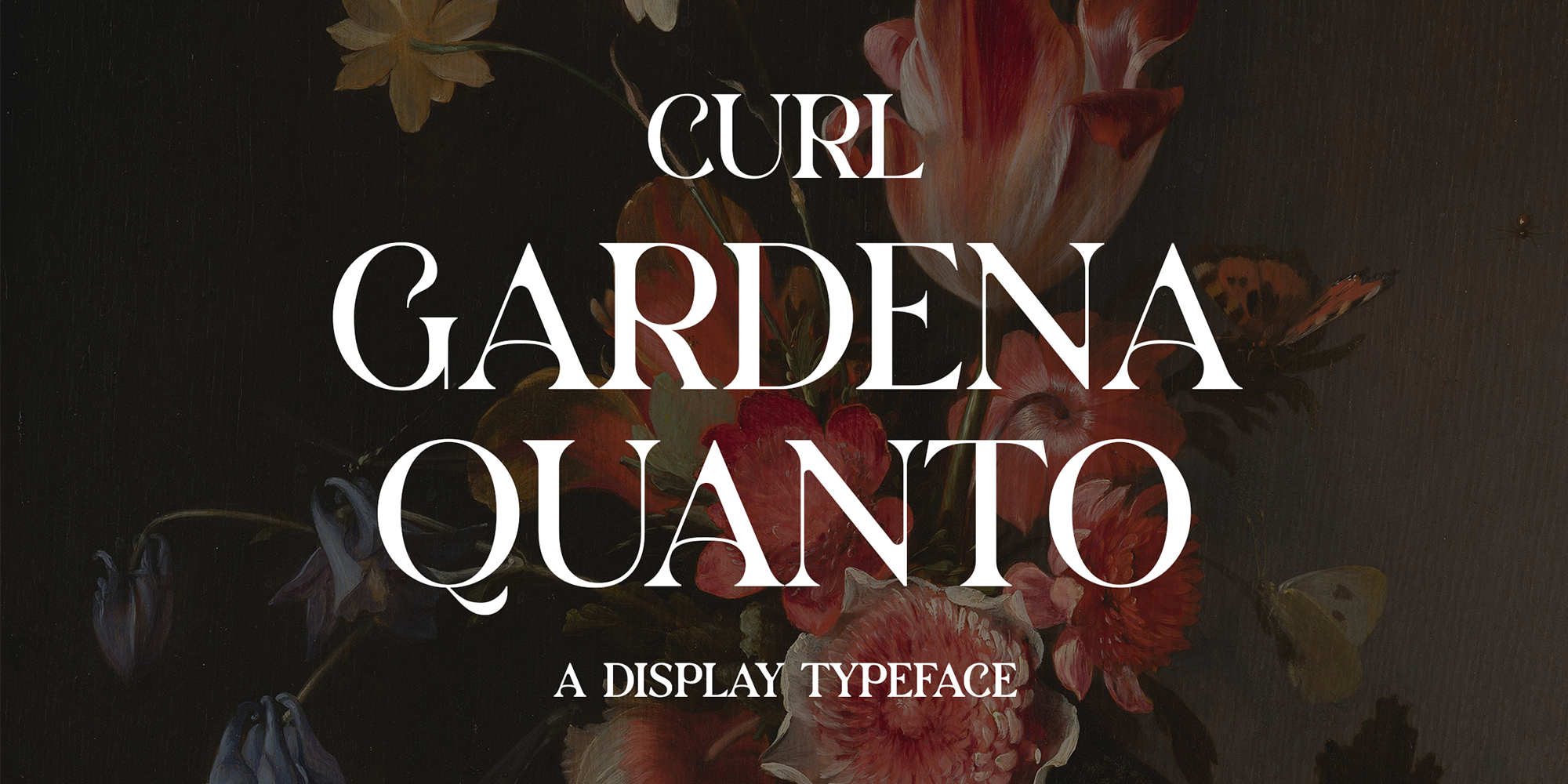
Gardena Quanto Font is ideal for garden design projects including botanical gardens, landscape architecture firms, garden center retailers, plant nurseries, horticultural organizations, garden design consultancies, outdoor living companies, and flourishing gardening campaigns. This natural typeface works perfectly for garden supply stores, landscape contractors, botanical education programs, greenhouse operators, and projects that celebrate the beauty and tranquility of garden cultivation and outdoor horticultural excellence.
What makes Gardena Quanto Font exciting is its flourishing garden character that perfectly captures the essence of botanical abundance and horticultural sophistication. The font features organic letterforms with garden-inspired curves that reflect the natural growth and seasonal beauty of cultivated gardens. Its botanical design elements embody the spirit of garden cultivation and horticultural artistry, making it perfect for projects that need to convey growth, nature, and connection to gardening culture. The carefully crafted garden proportions create an atmosphere of botanical sophistication and horticultural authenticity.
Gardena Quanto Font comes in multiple family variations including botanical, flourishing, natural, and garden styles. Each weight maintains the distinctive horticultural character while offering different levels of garden intensity and botanical presence. The font family includes garden alternates, botanical ligatures, and horticultural variations that provide designers with comprehensive options for creating truly authentic and naturally inspired typographic compositions that celebrate gardening excellence.
Whether you're designing garden branding, creating botanical marketing materials, or developing horticultural promotional graphics, Gardena Quanto Font Free Download provides the perfect typographic foundation for projects that celebrate gardening excellence and botanical sophistication. This remarkable typeface transforms ordinary text into compelling expressions of horticultural wisdom and garden elegance. Download this flourishing font today and cultivate your design projects with the garden authenticity and botanical refinement that captures the essential spirit of horticultural artistry and garden cultivation excellence.